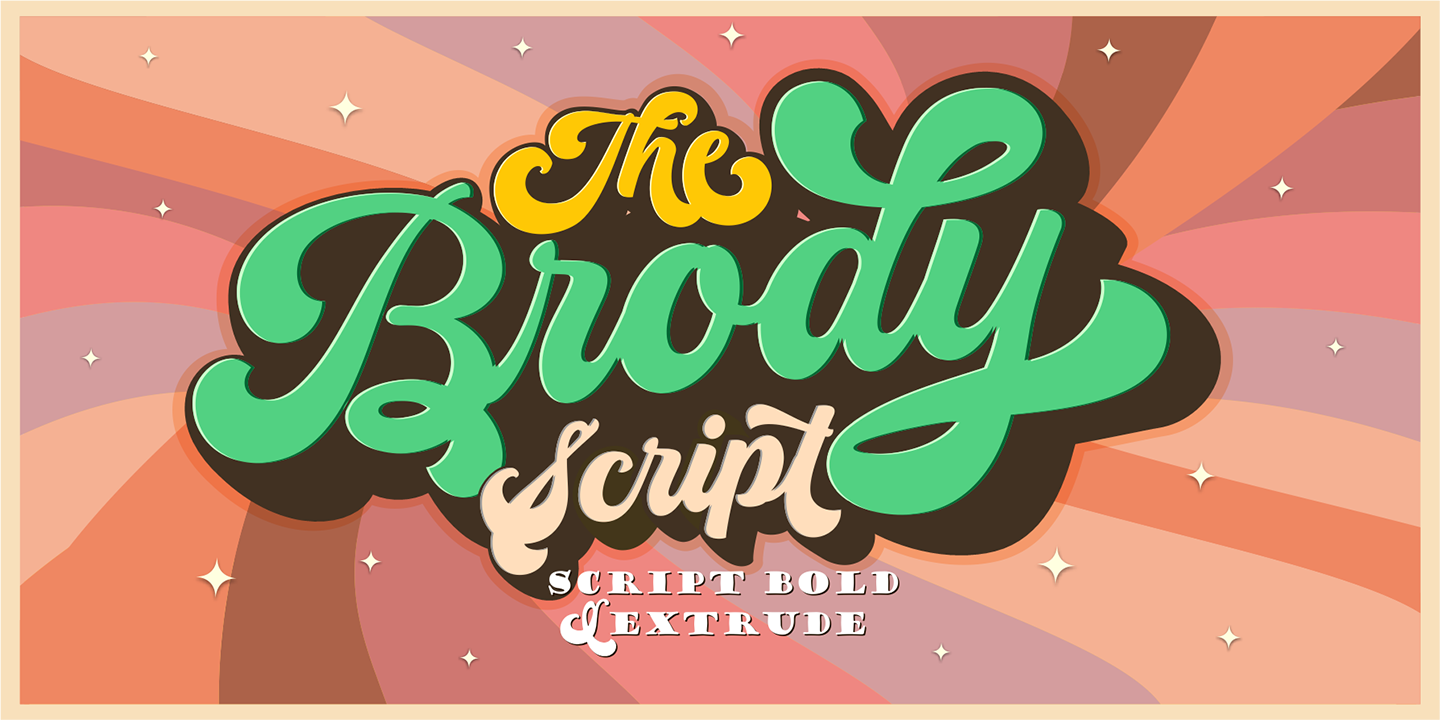
Brody Script Font is perfect for masculine personal branding, rugged lifestyle marketing, outdoor adventure communications, craft distillery labeling, leather goods packaging, and authentic handcrafted product designs. Its strong character makes it ideal for masculine entrepreneurs, outdoor gear companies, artisanal whiskey brands, custom motorcycle shops, and any application requiring confident typography that conveys masculine authenticity, handcrafted quality, and the reliable strength of traditional masculine craftsmanship and outdoor lifestyle values.
Brody Script Font is exciting because it embodies masculine confidence and authentic craftsmanship through boldly handwritten letterforms that reflect the straightforward honesty and reliable strength characteristic of traditional masculine values. Its rugged proportions and craft-inspired details evoke the satisfying work of skilled hands and the dependable quality that comes from masculine dedication to excellence, making it perfect for brands celebrating authentic masculine identity and traditional craftsmanship. The font's masculine character transforms communications into declarations of confident authenticity.
Brody Script Font family includes masculinely-crafted weight variations typically featuring Regular, Medium, and Bold options with handwritten styling that maintains masculine authenticity. The family often incorporates craft symbols, masculine ornaments, and outdoor elements designed for rugged lifestyle applications, providing designers with comprehensive tools for creating authentic, masculine-focused typographic compositions.